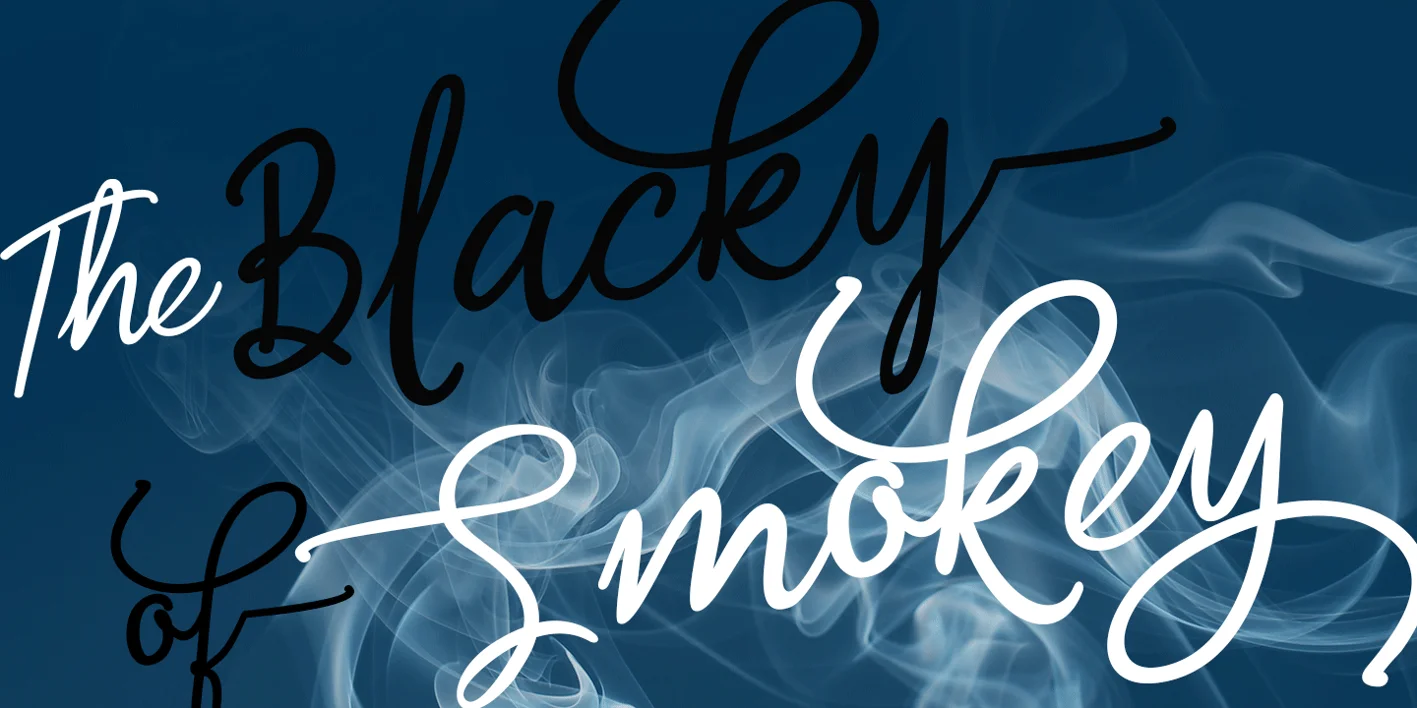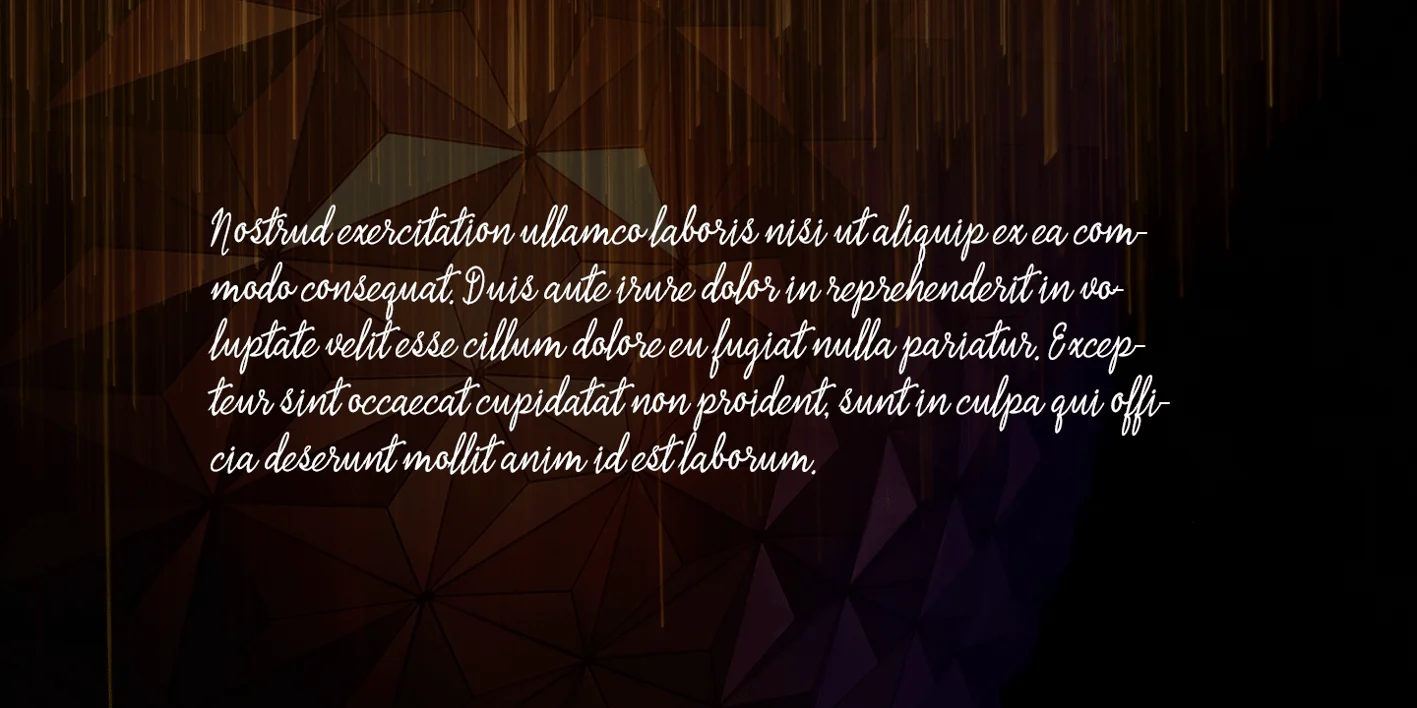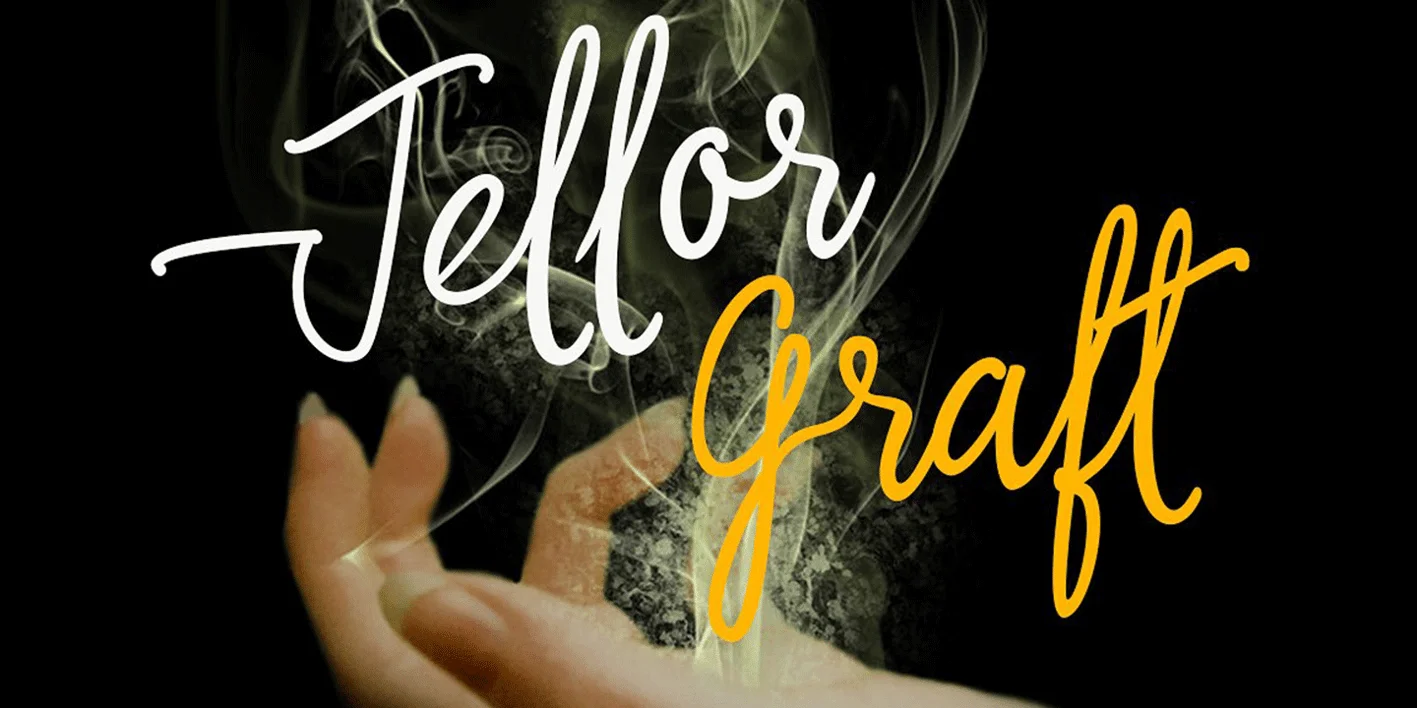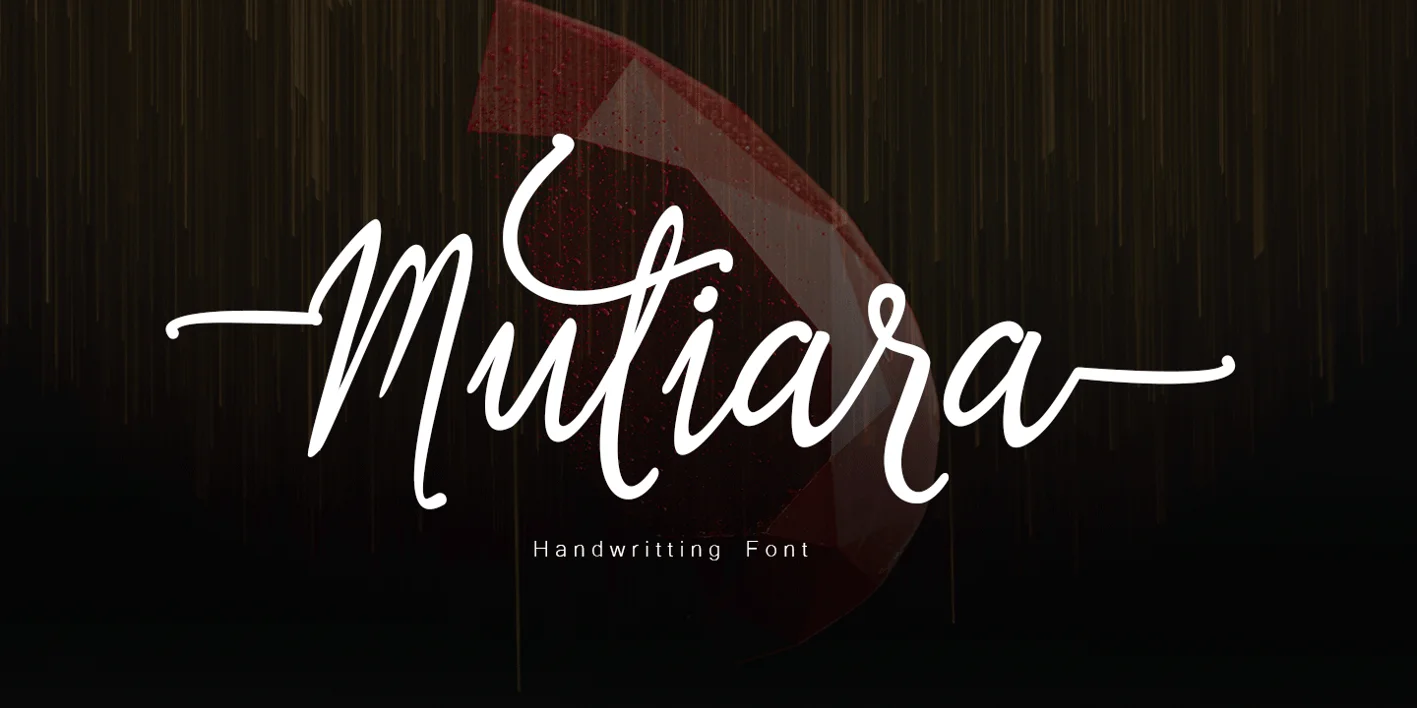
Mutiara Font
A good typeface communicates tone before a single word is read. Mutiara achieves this through a confident voice that adapts to diverse briefs. The typeface brings a versatile sensibility to a broad range of creative disciplines, with distinctive character without sacrificing readability that holds up whether the work is print-first or screen-first.
In practice, Mutiara proves particularly effective for packaging design, web design, poster creation, social media graphics, brand identity systems. Designers reaching for it find that the type decisions feel resolved rather than laboured — a useful quality when client timelines are tight.
The range of applications extends to editorial layouts, environmental graphics, product labels, annual reports. That breadth is deliberate: the proportions and spacing were stress-tested across a wide range of mock briefs before the typeface was finalised.
At smaller sizes the design retains its character without becoming cluttered. This resilience across scales makes Mutiara equally suitable for a business card and a billboard — a useful property when assets must scale across a campaign.
Independent studios handling packaging and editorial work find Mutiara a reliable choice for projects that demand both personality and restraint. The design avoids the self-conscious quirkiness that dates quickly, settling instead for considered distinctiveness that holds up over time.